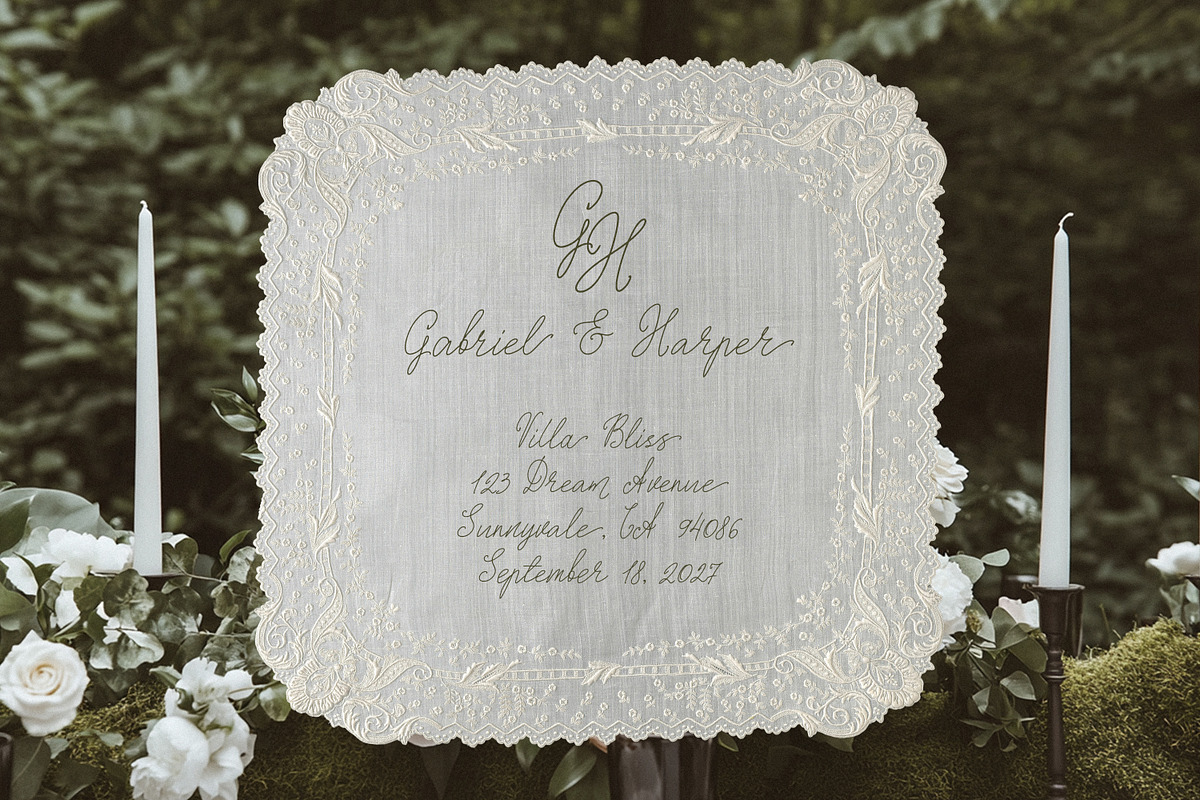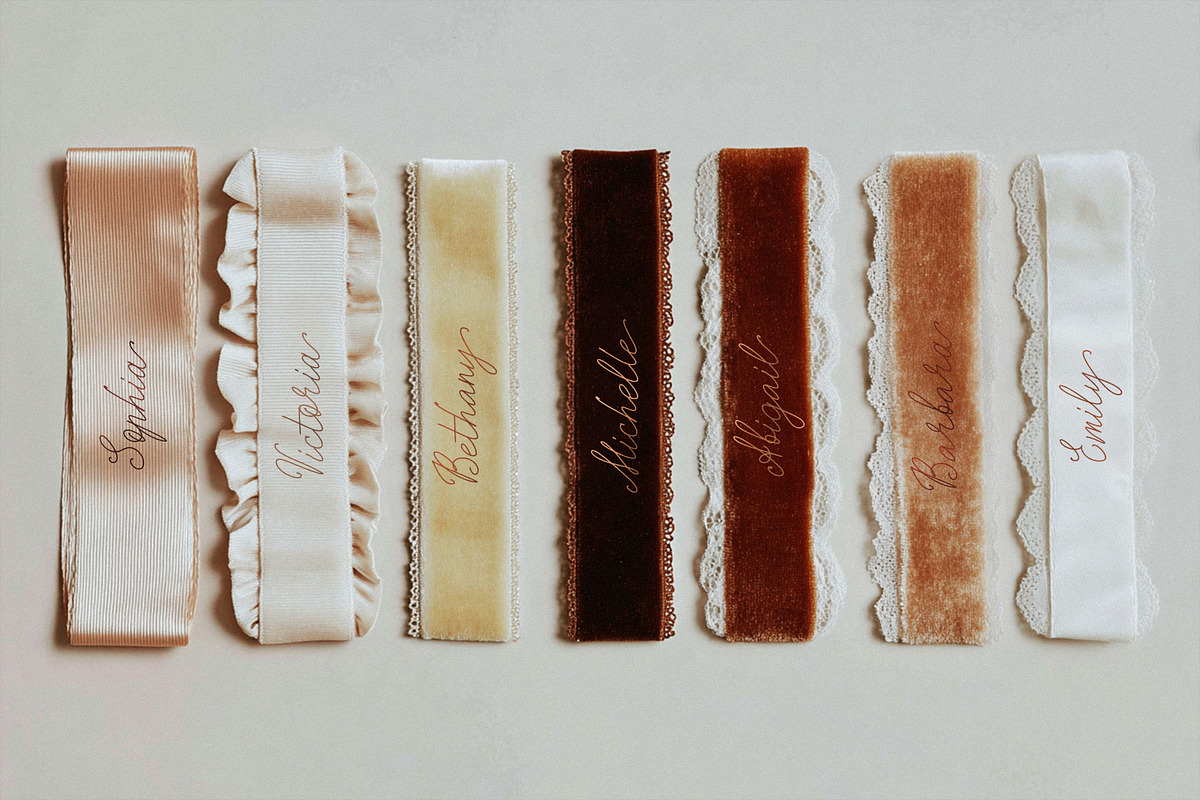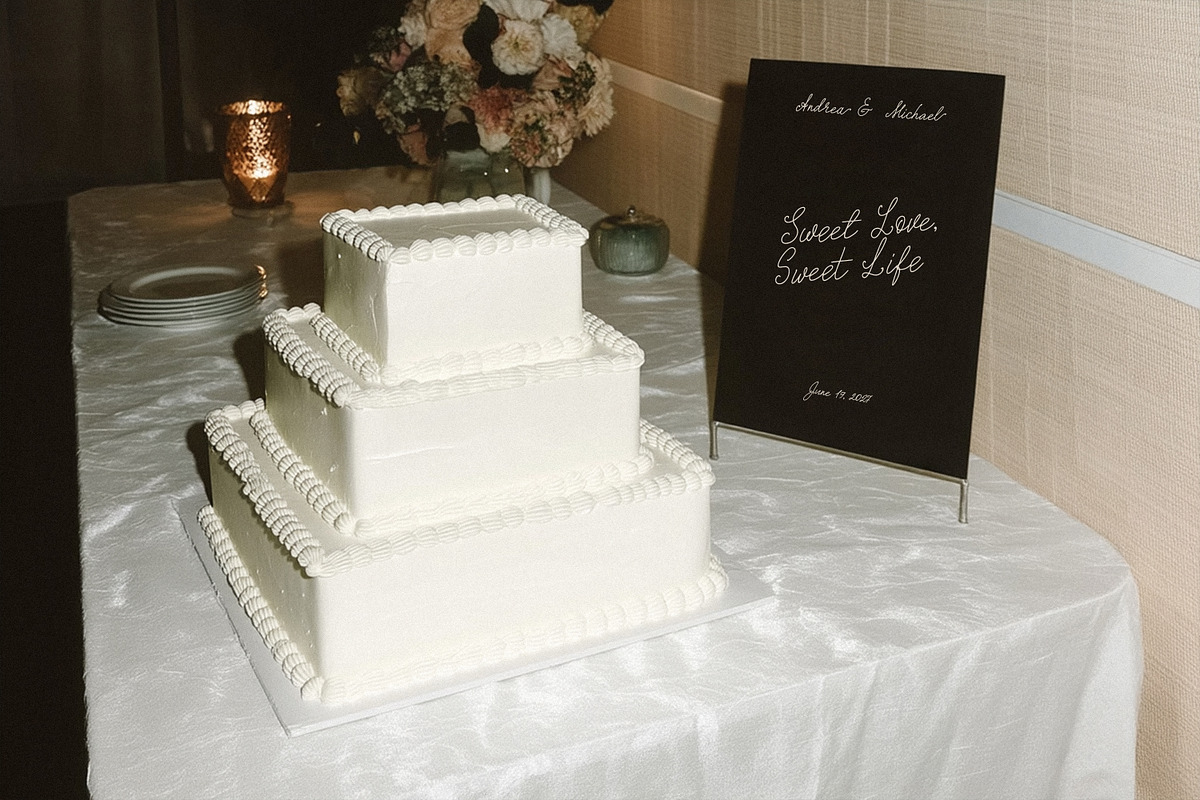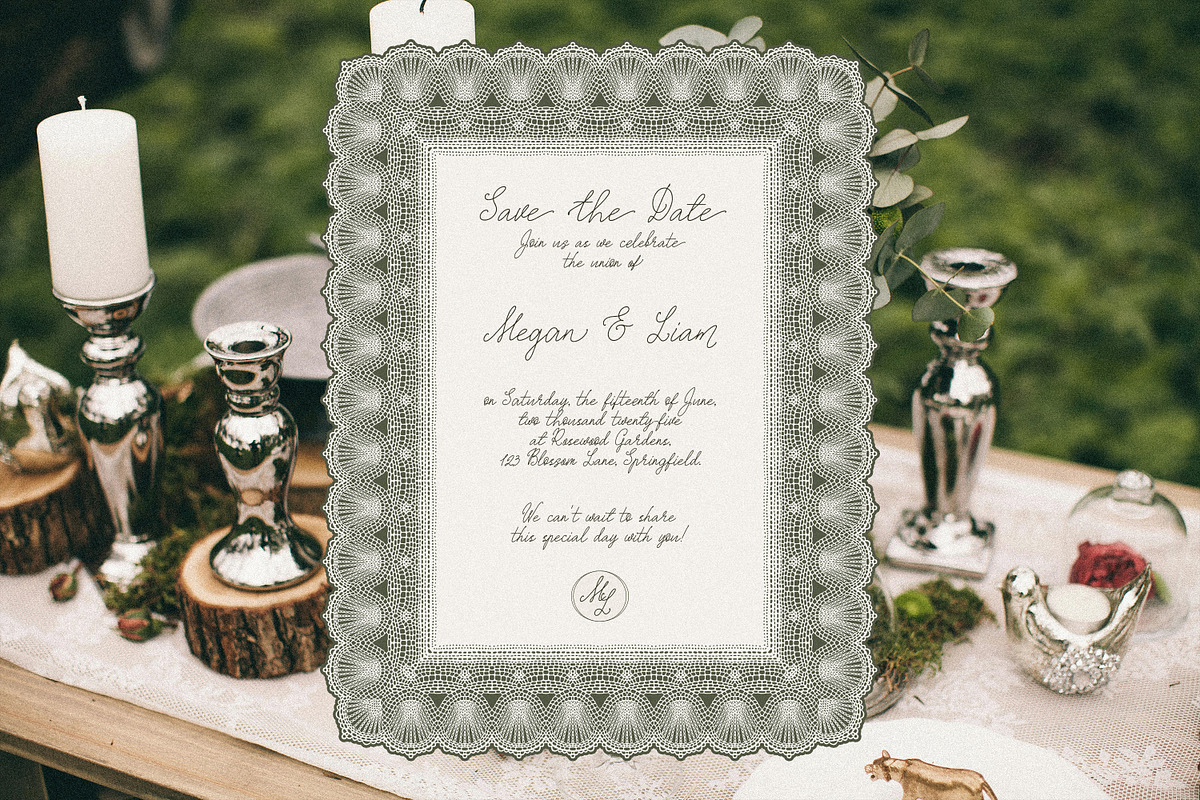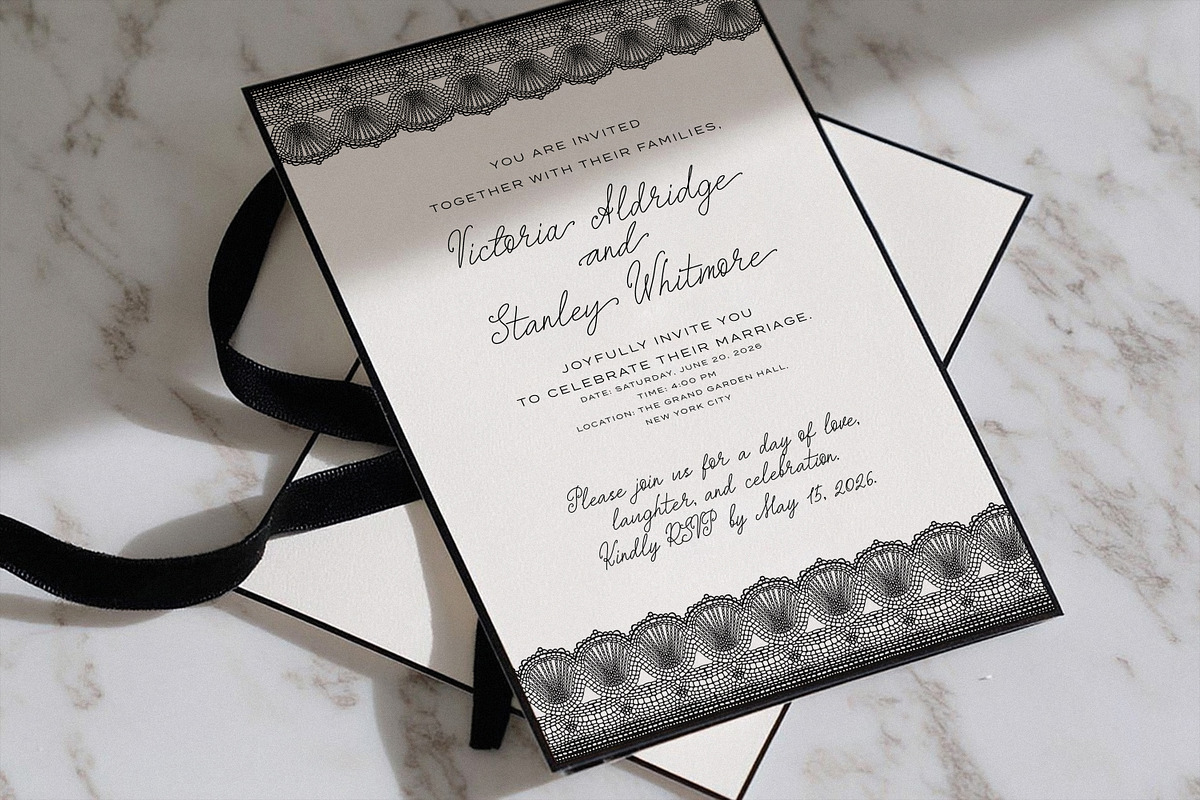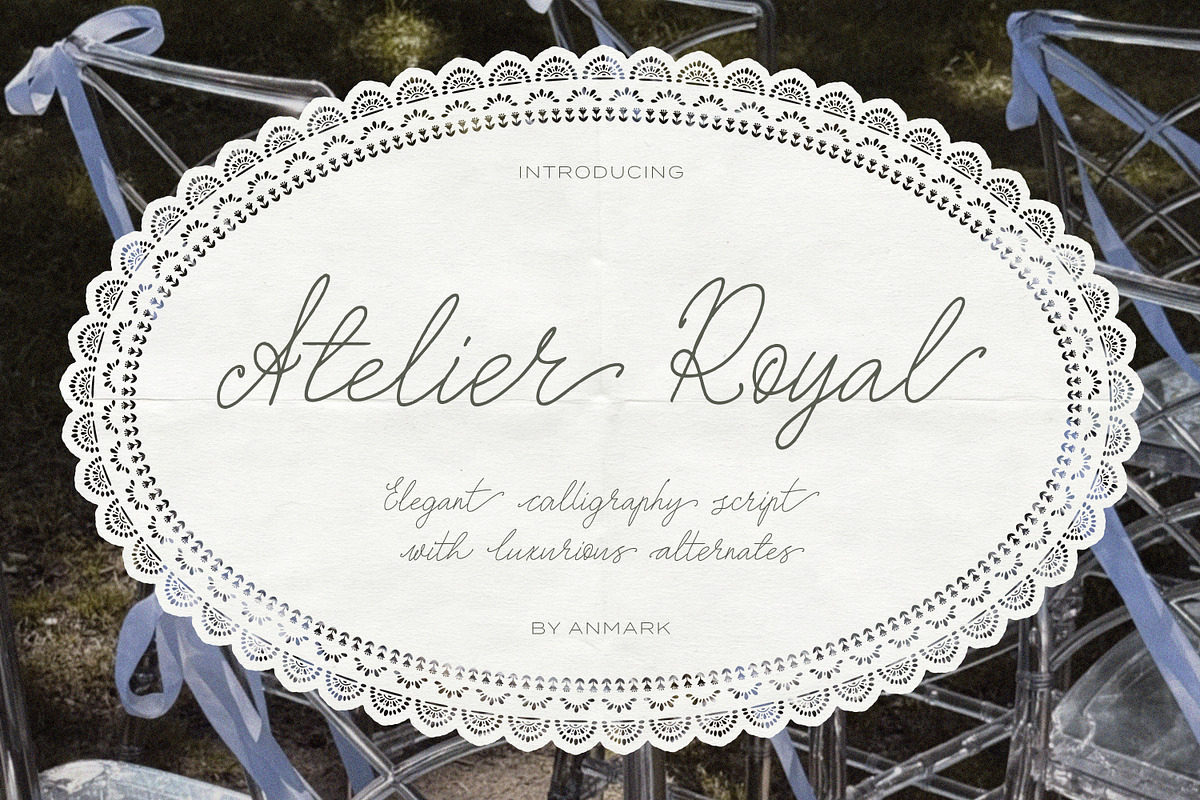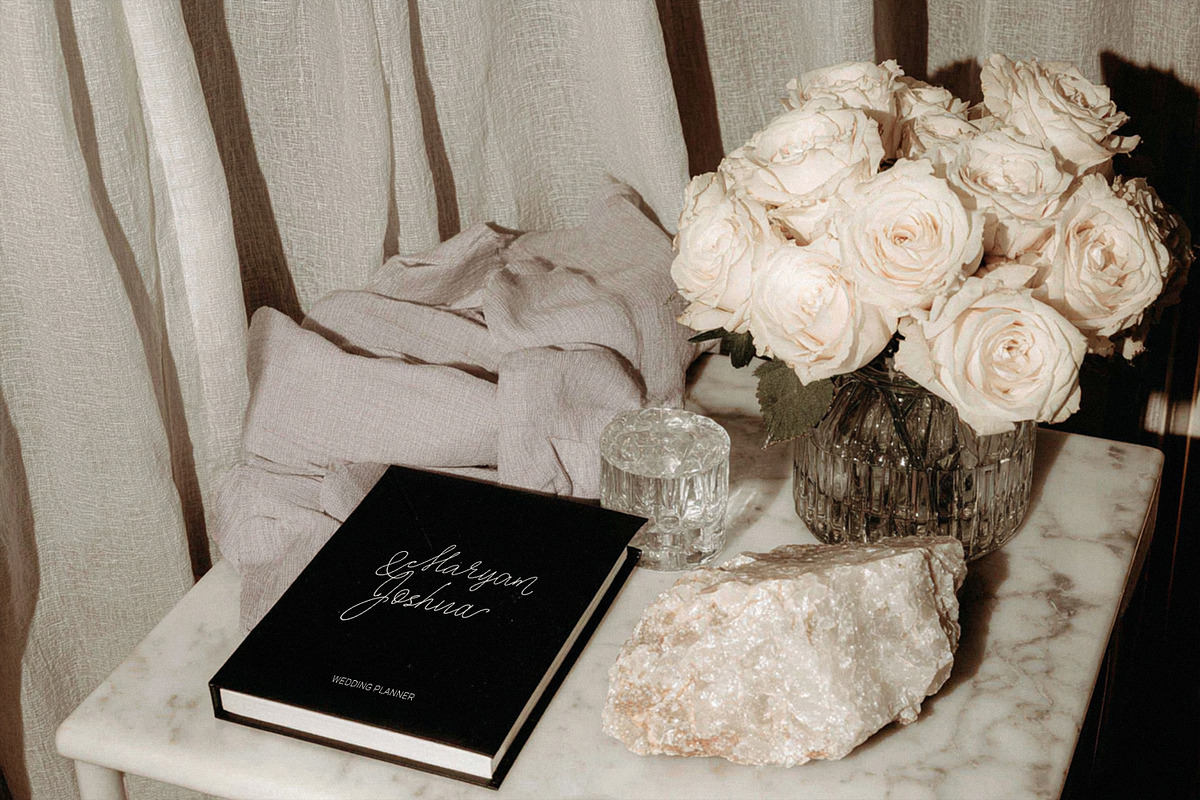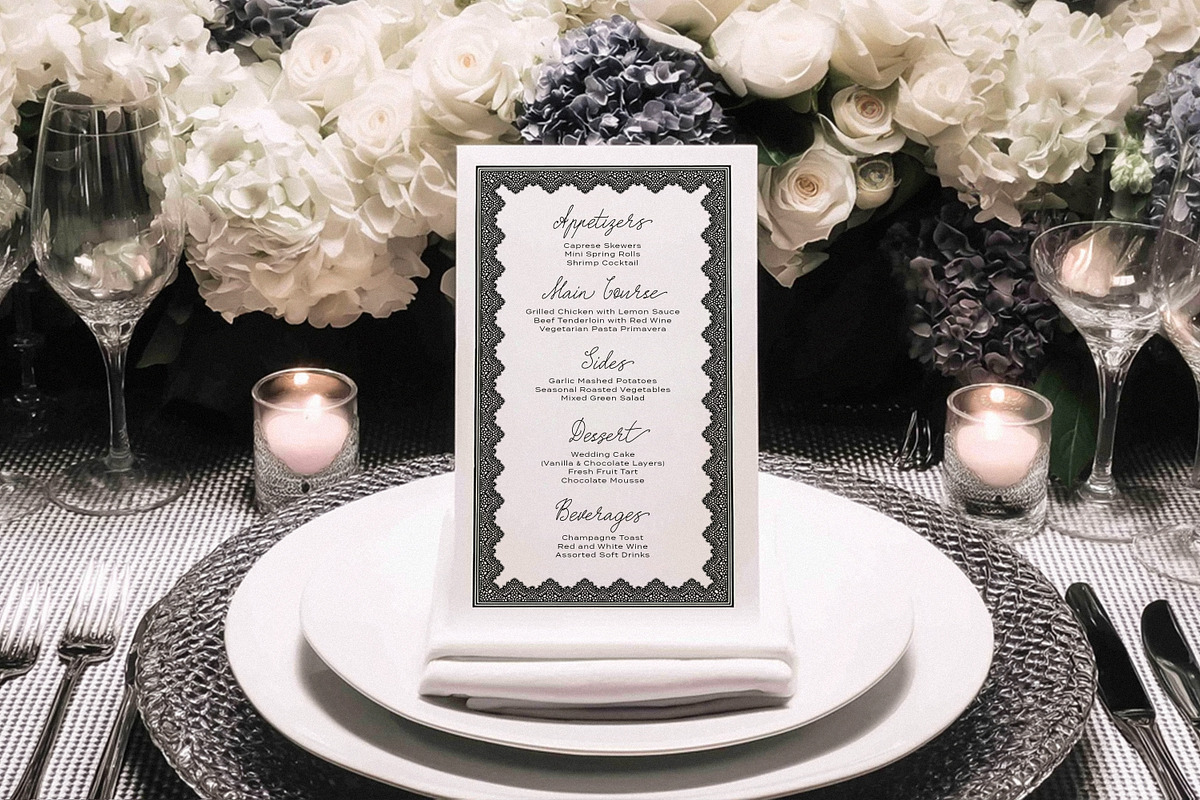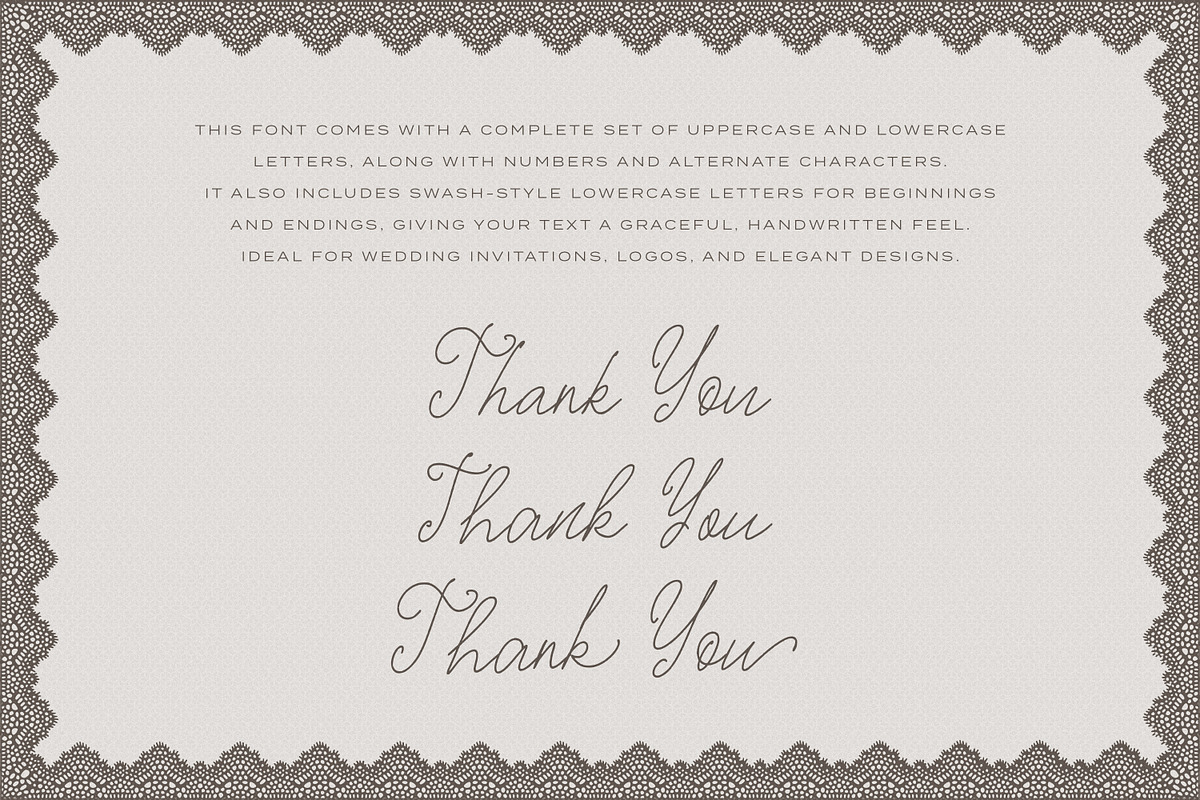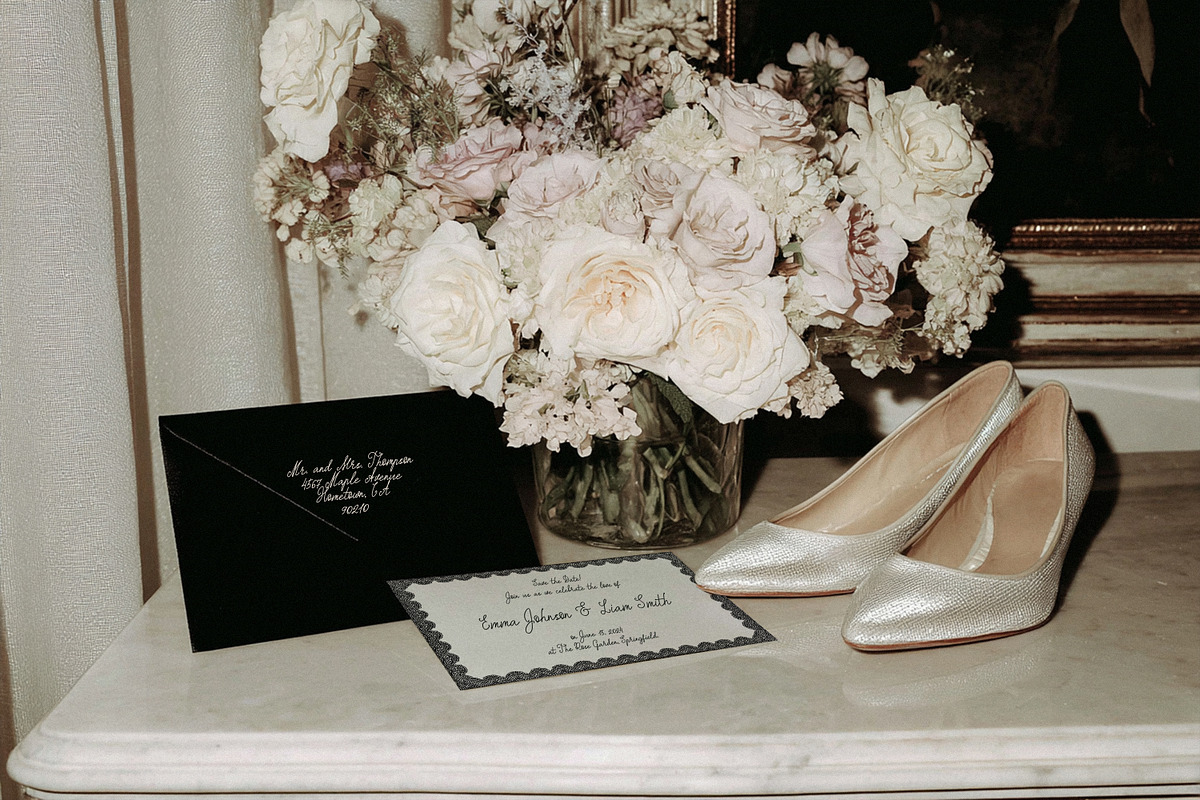
Atelier Royal Elegant Wedding Font
Atelier Royal is a refined calligraphy font created for weddings, invitations, branding, and elegant designs. Its flowing lines and swash-style letters give every word a sophisticated, handcrafted feel.
This font features:
- Full set of Uppercase & Lowercase letters
- Swash-style lowercase letters for elegant beginnings and endings
- Full set of Uppercase & Lowercase Alternate characters and Numbers for variety and refinement
- Smooth, high-quality strokes for print and digital use
- Multilingual support for international projects
Perfect for luxury wedding stationery, elegant logos, and romantic designs, Atelier Royal makes your text look polished and unique.